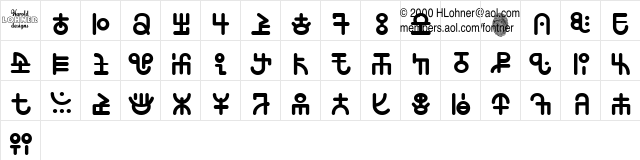
12 to the Moon Regular
| Copyright | 12 to the Moon computer font v1.0 00 Harold Lohner "  "http://members.aol.com/fontner Based on the message from the Moon in the Columbia Pictures movie "12 to the Moon". |
Design Context for 12 to the Moon Typeface
12 to the Moon is a composed and adaptable typeface that performs quietly and consistently across a wide range of design contexts.